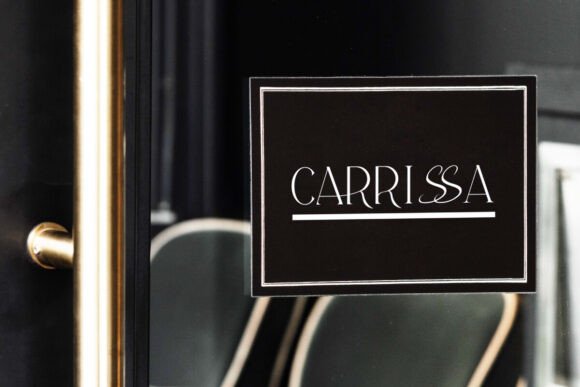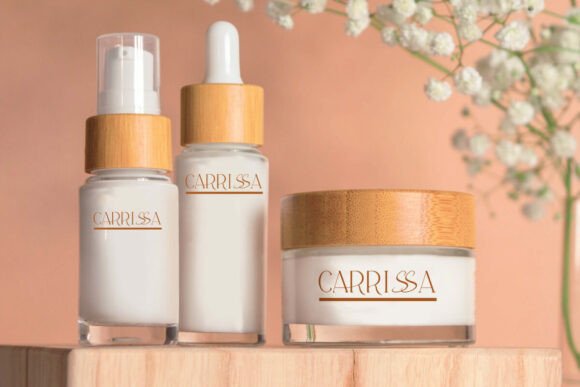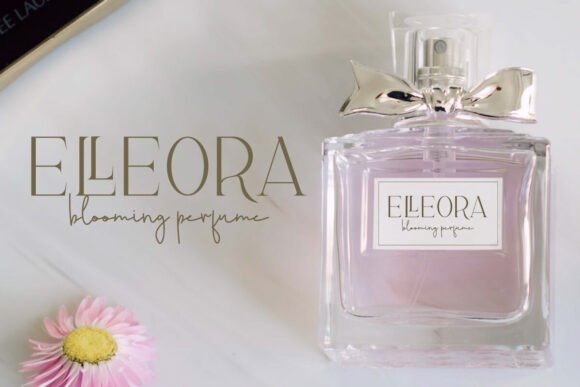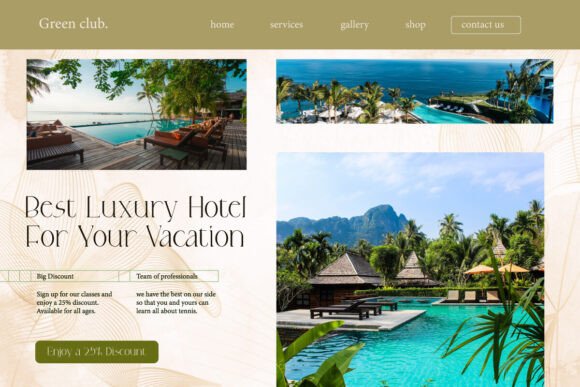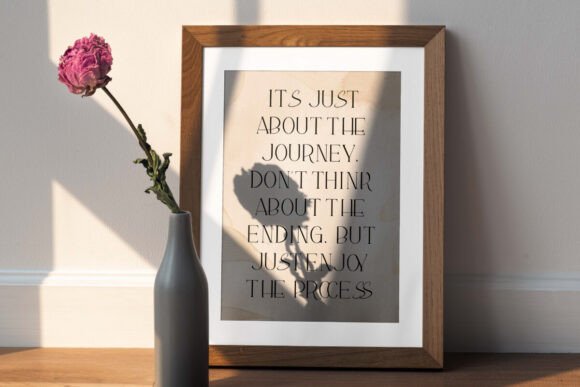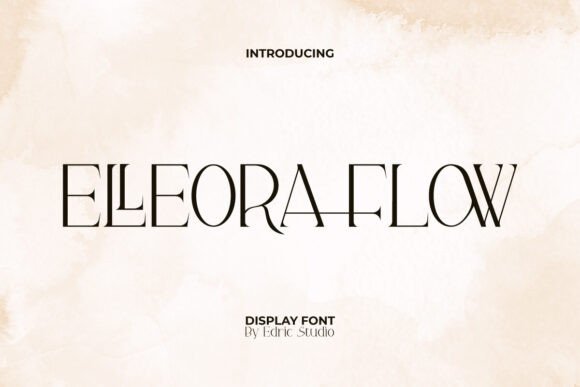
Introducing Elleora Flow Font: Elevate Your Designs with Elegance and Sophistication
Are you looking for a font that exudes luxury, sophistication, and elegance? Look no further than Elleora Flow Font, a stunning serif display typeface that is sure to elevate your design projects to new heights. Inspired by the sparkle of diamonds, Elleora Flow brings a mesmerizing and luxurious feel to any design, making it perfect for a wide range of industries and applications.
Elleora Flow Font is an incredibly versatile typeface that can be used across various industries, including:
- Accessories and jewelry
- Beauty products
- Entertainment
- Fashion
- Events and parties
- Photography
- Crafts
- Publishing
- Restaurants
- Travel
- Writing
Whether you’re designing a logo, brochure, or website, Elleora Flow Font is the perfect choice to add a touch of sophistication and glamour to your project.
What Sets Elleora Flow Apart
So, what makes Elleora Flow Font so special? Here are just a few features that set it apart:
- Complete character set: Elleora Flow comes with a complete set of uppercase and lowercase characters, numbers, a broad range of punctuation, symbols, and ligatures.
- Refined character design: The font’s character set is thoughtfully designed with balanced spacing and kerning, offering a premium look and feel.
- Elegant and sleek: Elleora Flow’s serif design gives it an elegant and sleek appearance that’s perfect for high-end designs.
With Elleora Flow Font, the design possibilities are endless. Here are just a few ideas to get you started:
- Branding: Use Elleora Flow to create a luxurious brand identity that exudes sophistication and elegance.
- Covers and packaging: Add a touch of glamour to your book covers, product packaging, and labels.
- Custom artwork: Create stunning custom artwork, such as illustrations, graphics, and posters.
- Invitations and stationery: Use Elleora Flow to design elegant invitations, stationery, and greeting cards.
- Merchandise: Add a touch of luxury to your merchandise, such as t-shirts, mugs, and tote bags.
- Websites: Use Elleora Flow to create a sophisticated and elegant website that showcases your brand’s personality.
Why Choose Elleora Flow Font?
So, why should you choose Elleora Flow Font for your next design project? Here are just a few reasons:
- Unique and distinctive: Elleora Flow’s elegant and sleek design sets it apart from other fonts, making it a great choice for designers who want to create something unique and distinctive.
- High-quality design: The font’s refined character design and balanced spacing and kerning ensure a high-quality look and feel.
- Versatile: Elleora Flow can be used across various industries and applications, making it a great investment for designers and crafters.
In conclusion, Elleora Flow Font is an elegant, sleek, and modern serif display typeface that’s perfect for designers and crafters who want to add a touch of luxury and sophistication to their designs. With its complete character set, refined character design, and versatile applications, Elleora Flow is an excellent choice for a wide range of industries and design projects. So why wait? Download Elleora Flow Font today and elevate your designs to new heights!